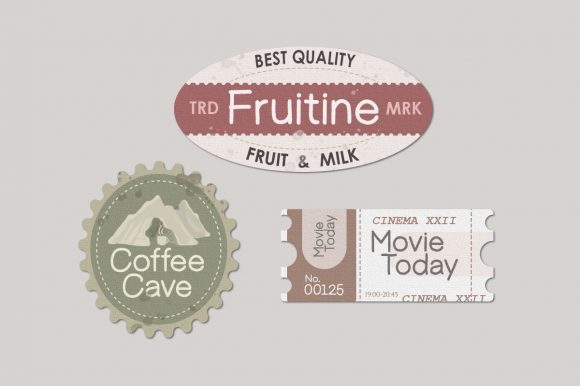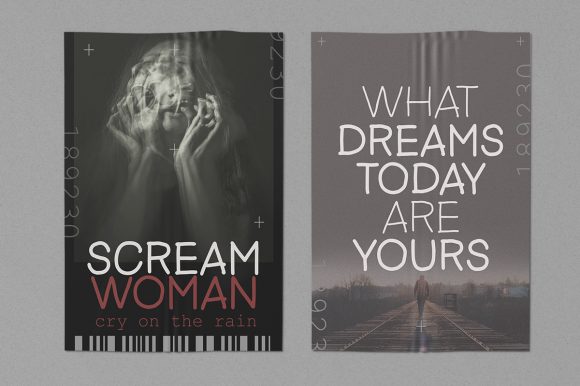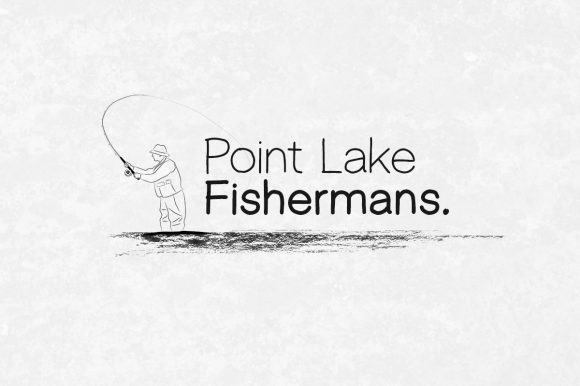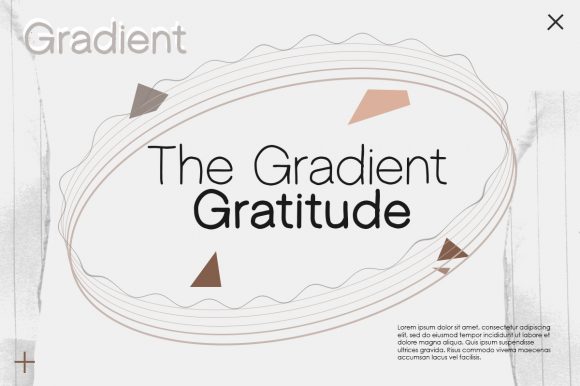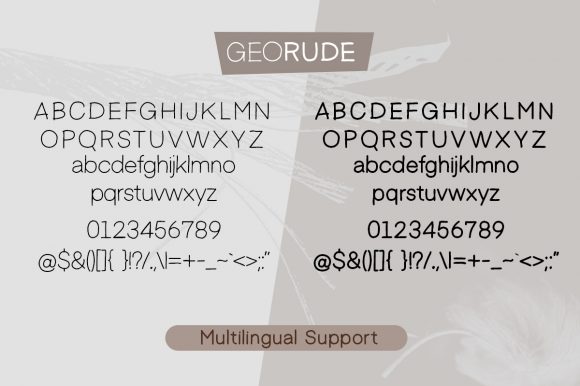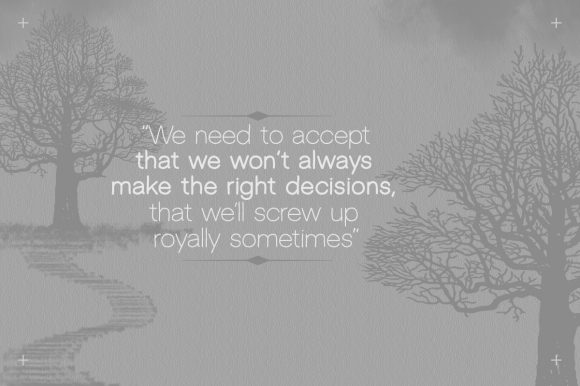
Discover the Quirky Charm of Georude Font
You’ve spent hours pouring your heart into a design project, and just as you’re about to call it a night, you realize something’s missing – that extra oomph that sets your creation apart. You scroll through your font library, searching for the perfect match, and then, like a breath of fresh air, you stumble upon Georude Font.
This simple yet quirky display font is more than just a pretty face; it’s a game-changer. Whether you’re working on a branding project, a social media campaign, or a graphic novel, Georude Font has the potential to elevate your creations to new heights.
As a designer, you know the value of having the right tools at your disposal. That’s why Georude Font is an incredibly valuable asset to any font library. With its unique charm and versatility, it’s sure to become your go-to font for any project that needs a touch of personality.
Georude Font Key Features
- Font Family: Georude is a unique, modern sans-serif font family.
- Character Count: Georude includes a comprehensive character set, covering over 800 glyphs.
- Resolution: Designed to work at resolutions up to 300 DPI (dots per inch), making it suitable for both digital and print media.
- Weight and Style: Georude is available in 5 weights (Light, Regular, Medium, Bold, Black) and 3 styles (Standard, Italic, Oblique).
- Language Support: Supports a wide range of languages, including Latin, Cyrillic, Greek, and many others.
Georude Font Review
Overall, I found the Georude Font to be an interesting and unique addition to the world of typography.
- The Georude Font has a distinctive, hand-drawn feel that can add a touch of personality to any design project.
- The font is highly customizable, with a range of weights and styles to choose from.
- The Georude Font is highly legible, even at smaller font sizes, making it a great choice for body text or headings.
- The Georude Font may not be suitable for projects that require a more formal or traditional look.
- The font’s unique style may not be to every designer’s taste, and some may find it too playful or distracting.
- The Georude Font may not be as versatile as some other fonts, and may not work well in certain contexts (e.g. logos, titles, etc.).
The Georude Font is a solid choice for designers looking to add some personality to their projects. While it may not be the best fit for every design, it’s definitely worth considering for the right project.
Practical Application Guide for Georude Font
Georude Font is particularly effective for creating eye-catching headlines and titles in Canva.
Georude Font is ideal for creating custom logos, branding elements, and typography-based designs in Adobe Photoshop or Illustrator.
Georude Font is suitable for creating engaging titles, headings, and body text in PowerPoint and Word.
Georude Font is versatile and can be used in a variety of design contexts, including:
– Typography-based designs
– Headlines and titles
– Body text and paragraphs
Experiment with different font sizes, colors, and styles to get the most out of Georude Font.
Alternatives to Georude Font for Designers
Montserrat Font is a sans-serif typeface that is clean, modern, and highly legible. It is ideal for use in digital products, such as websites, mobile apps, and video games. Montserrat Font is a great alternative to Georude Font for designers who want a similar feel but with a more modern twist. It is also highly customizable and has a wide range of weights and styles to choose from.
Open Sans Font is a popular sans-serif typeface that is highly legible and versatile. It is suitable for use in a wide range of applications, including print and digital media. Open Sans Font is a great alternative to Georude Font for designers who want a clean and modern look without the bold, geometric feel of Georude. It is also highly customizable and has a wide range of weights and styles to choose from.
Lato Font is a sans-serif typeface that is highly legible and elegant. It is suitable for use in a wide range of applications, including print and digital media. Lato Font is a great alternative to Georude Font for designers who want a clean and modern look with a more refined feel. It is also highly customizable and has a wide range of weights and styles to choose from.
Inter Font is a sans-serif typeface that is highly legible and modern. It is suitable for use in a wide range of applications, including print and digital media. Inter Font is a great alternative to Georude Font for designers who want a clean and modern look with a more minimalist feel. It is also highly customizable and has a wide range of weights and
For optimal readability, we recommend using a font size between 12-14 points, with a line height of at least 1.2-1.5 times the font size. This will ensure that the text is legible and easy to read, especially in digital environments.
Q: Can I customize Georude Font to create a custom version?
Yes, Georude Font is a variable font, which means it can be customized to create a custom version. You can use font editing software or design applications that support variable fonts to modify the font’s weight, width, and other parameters to create a unique look.